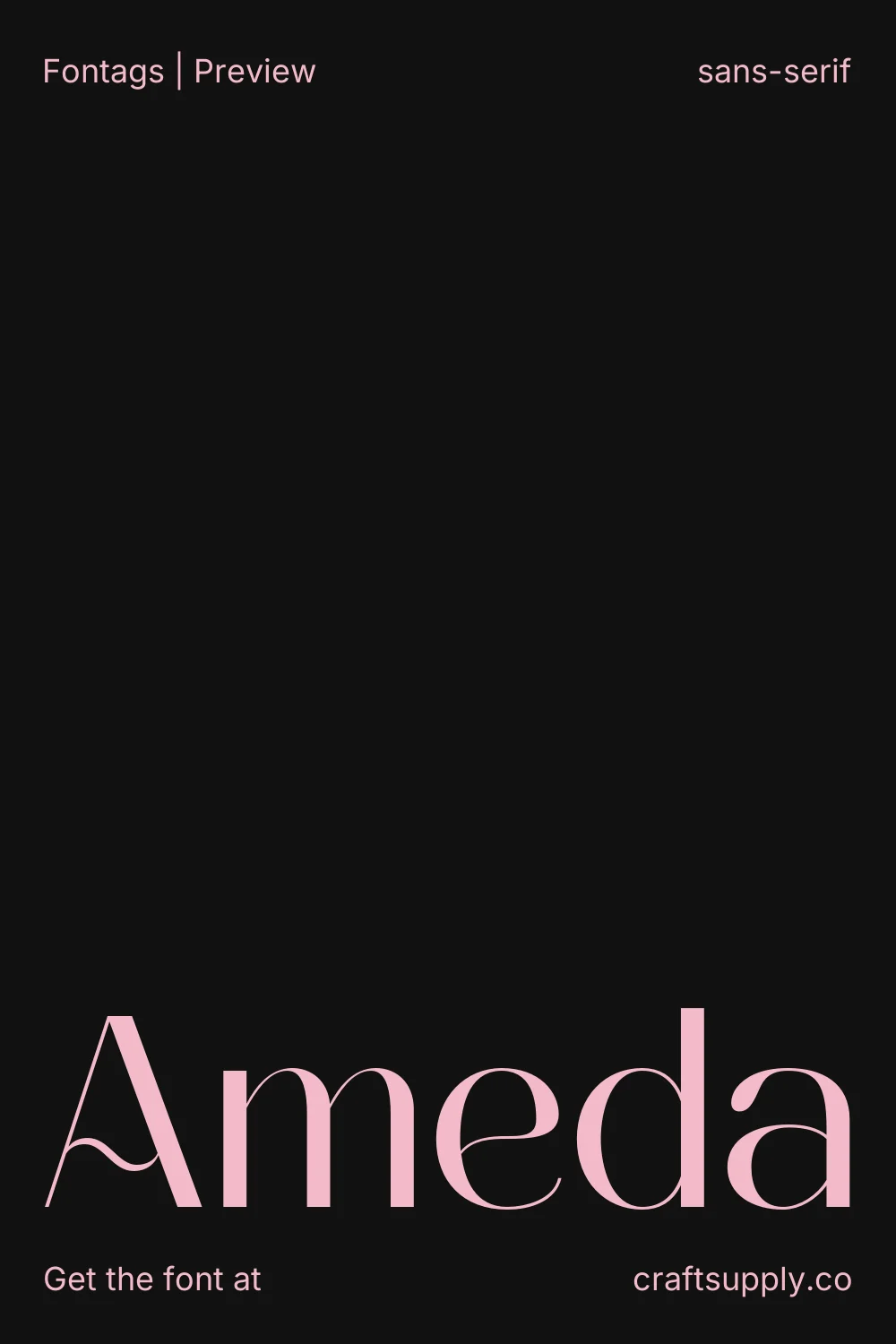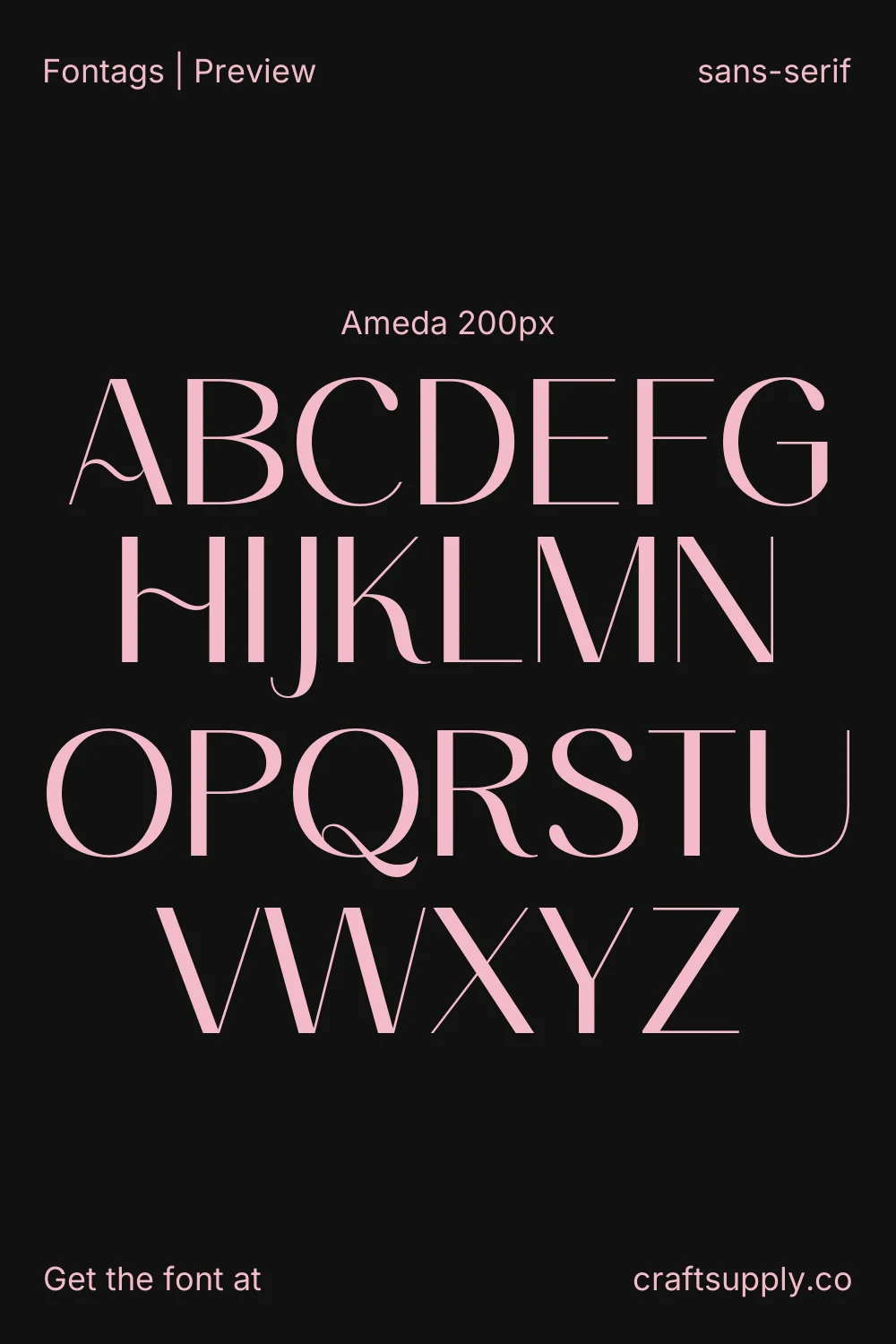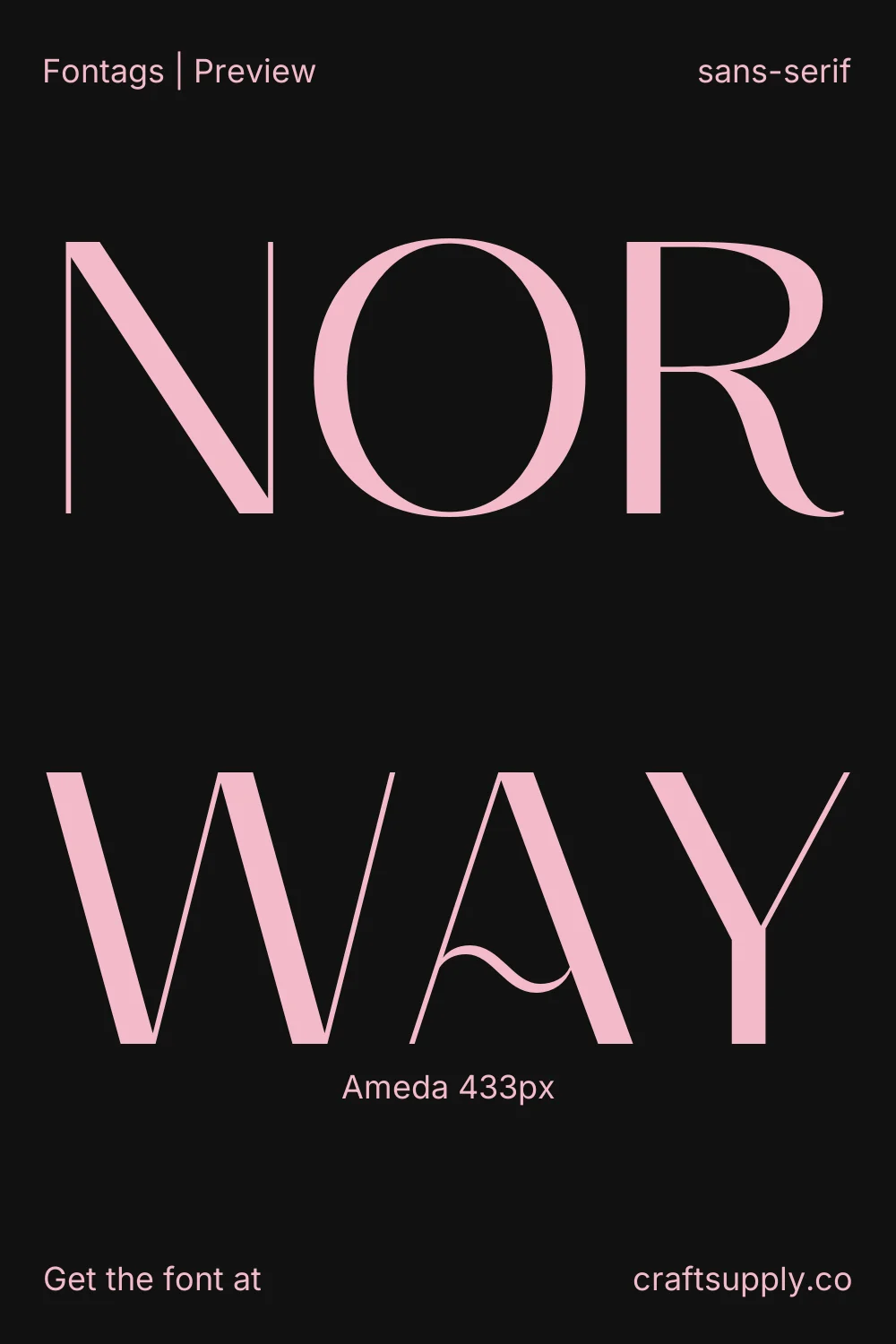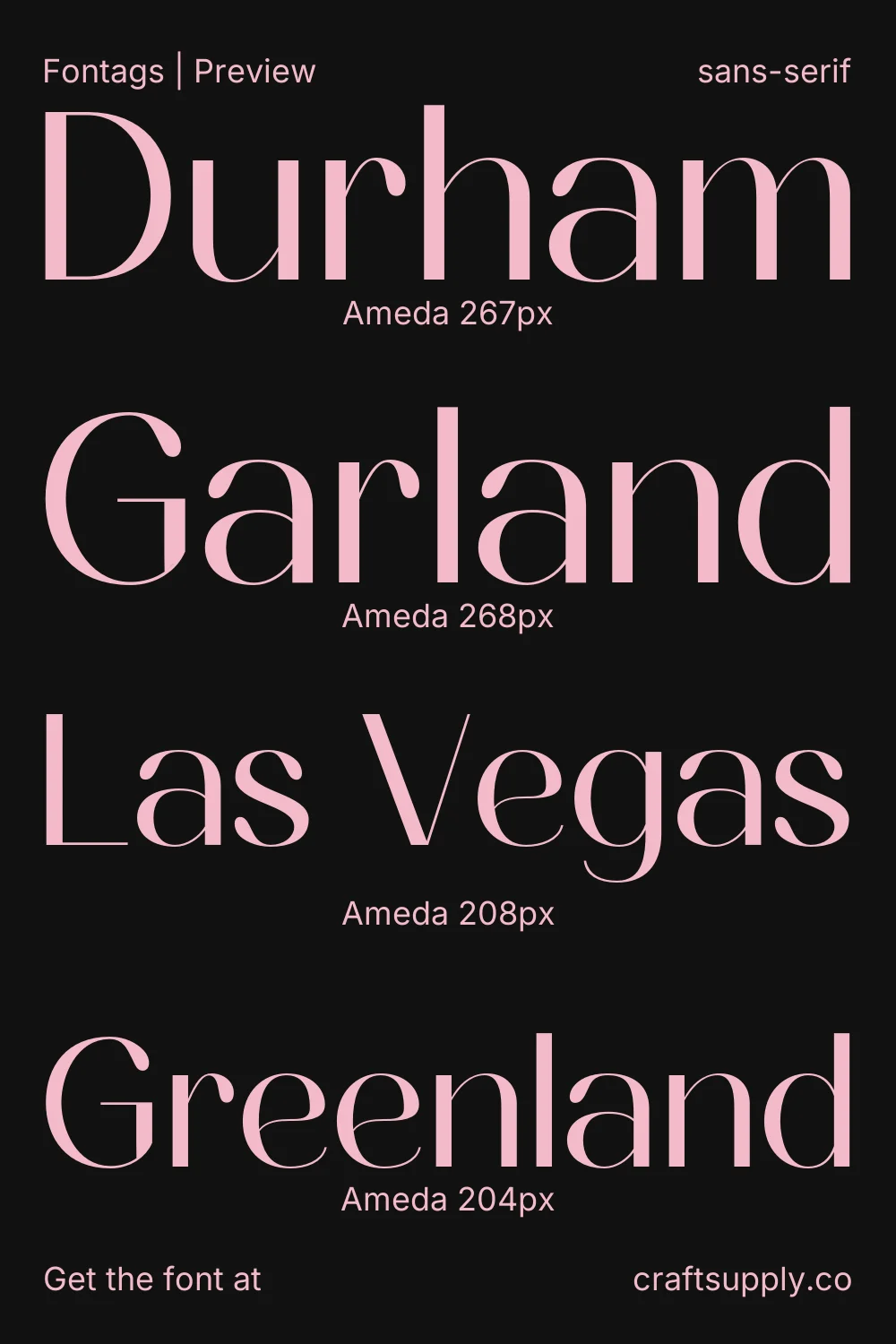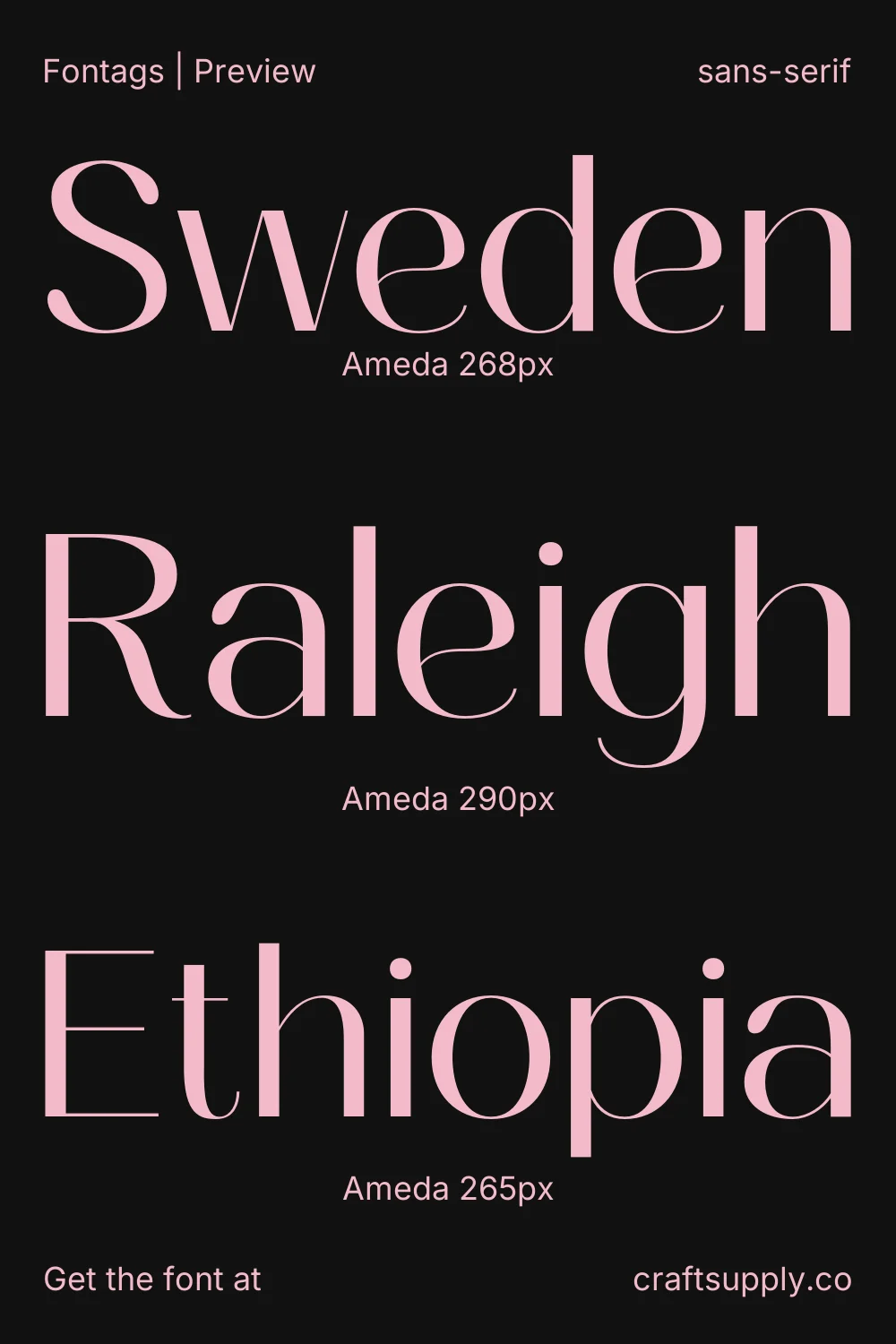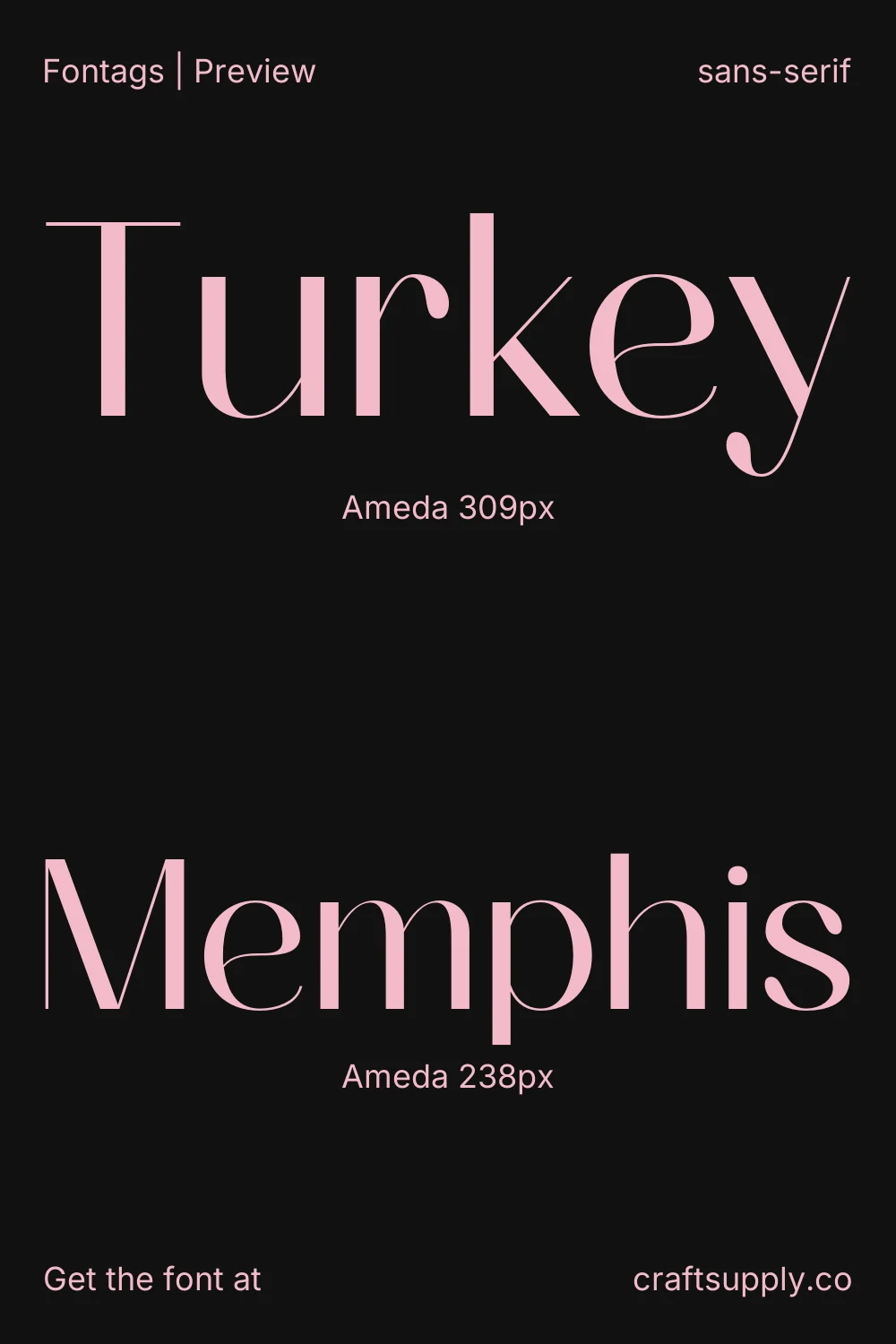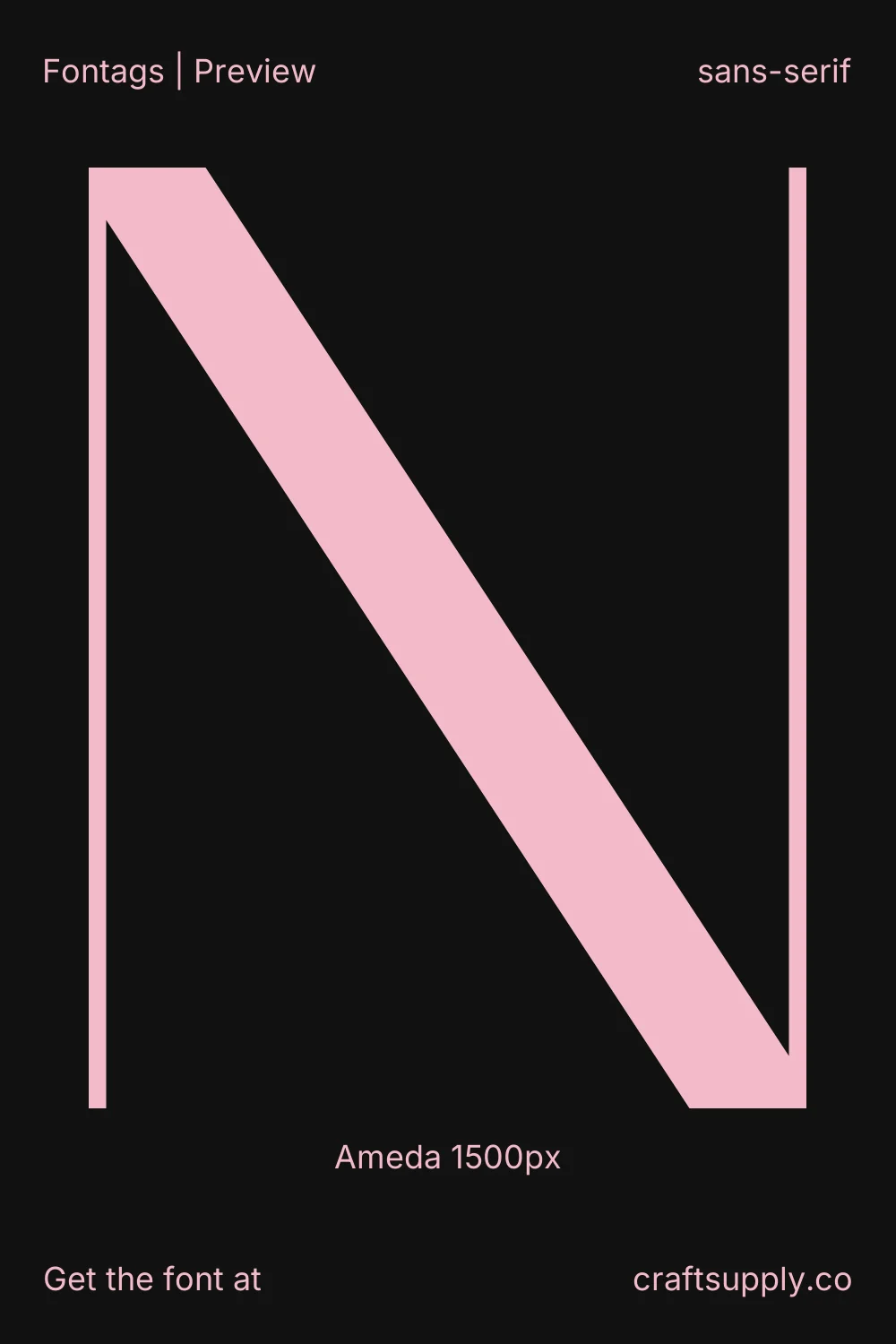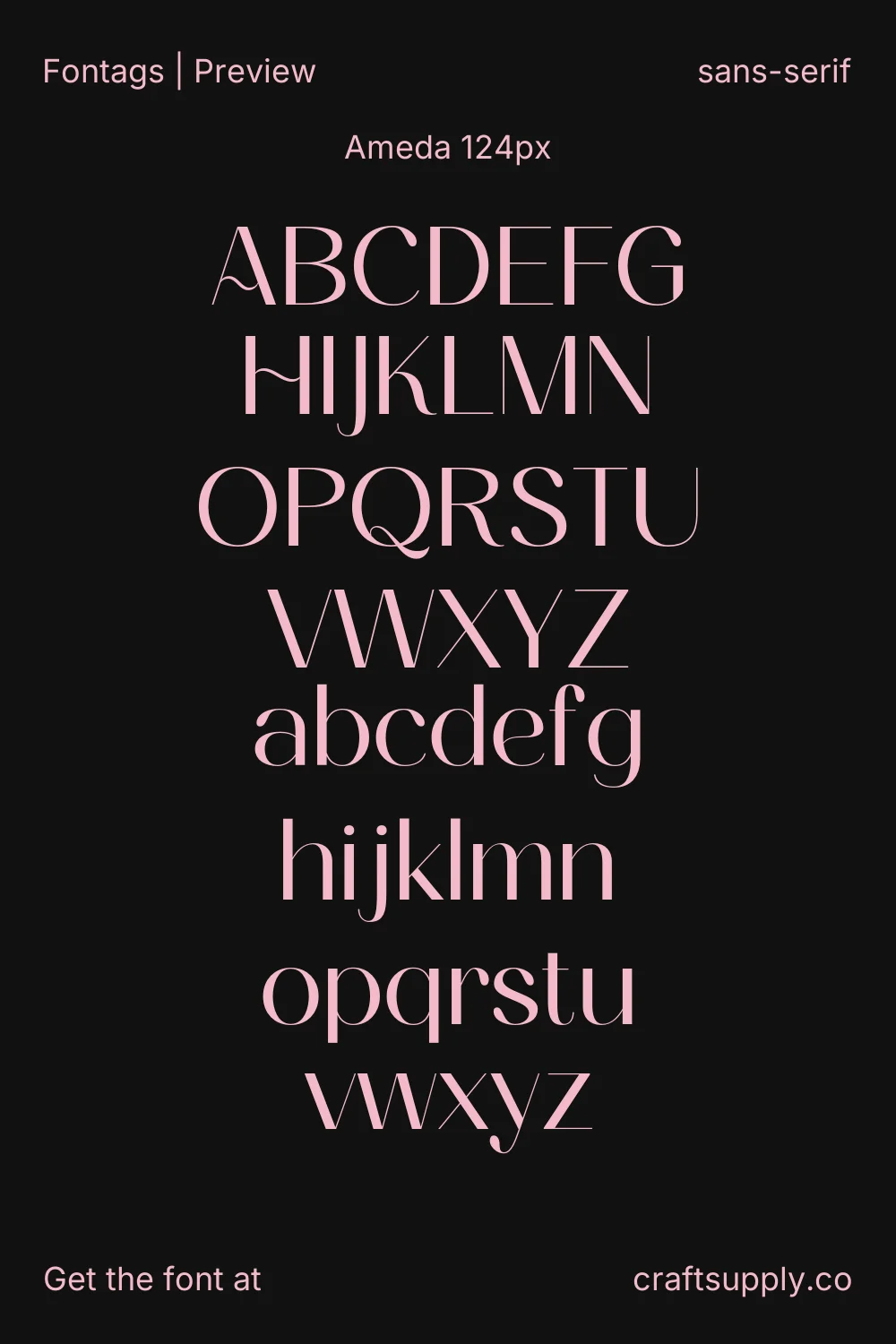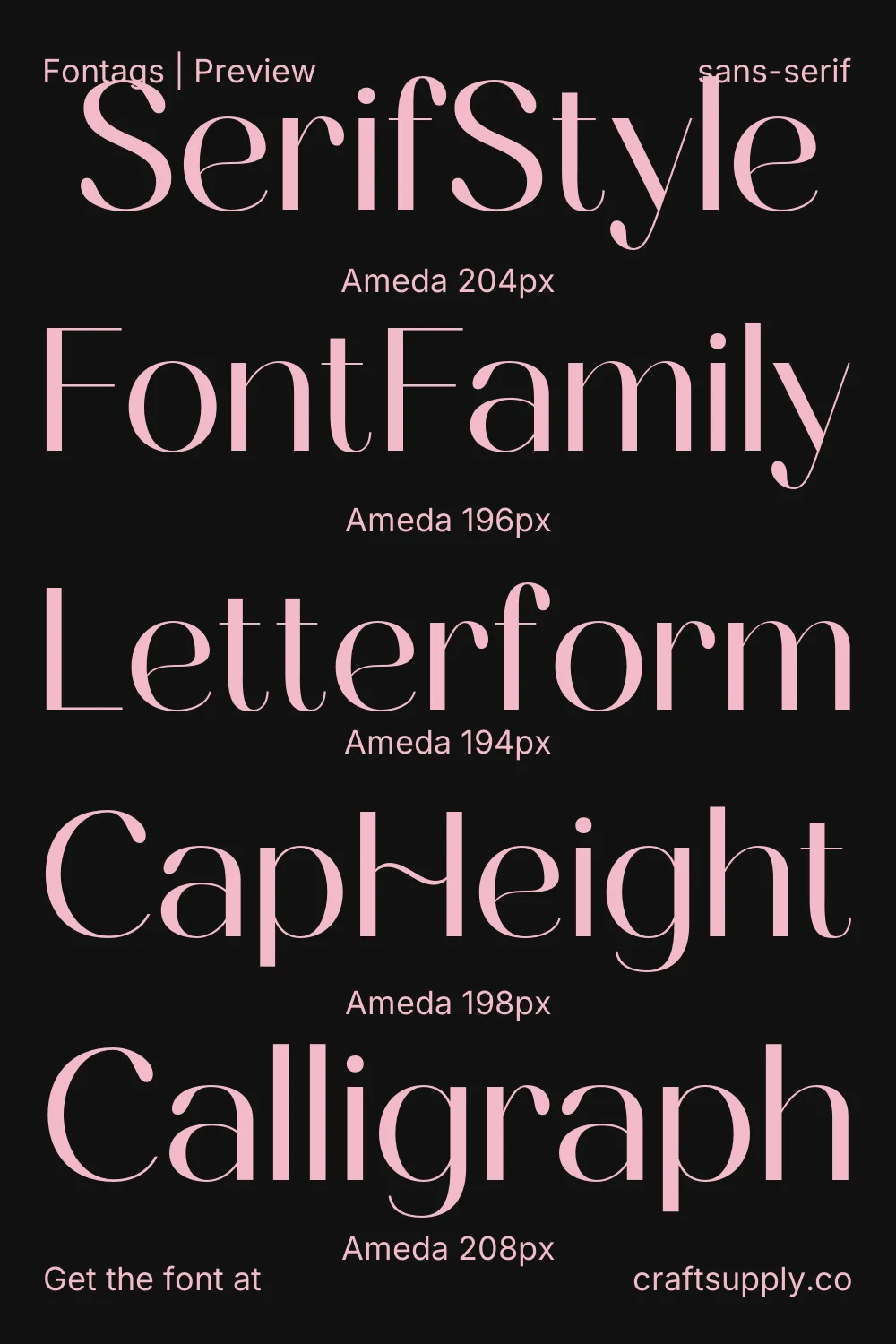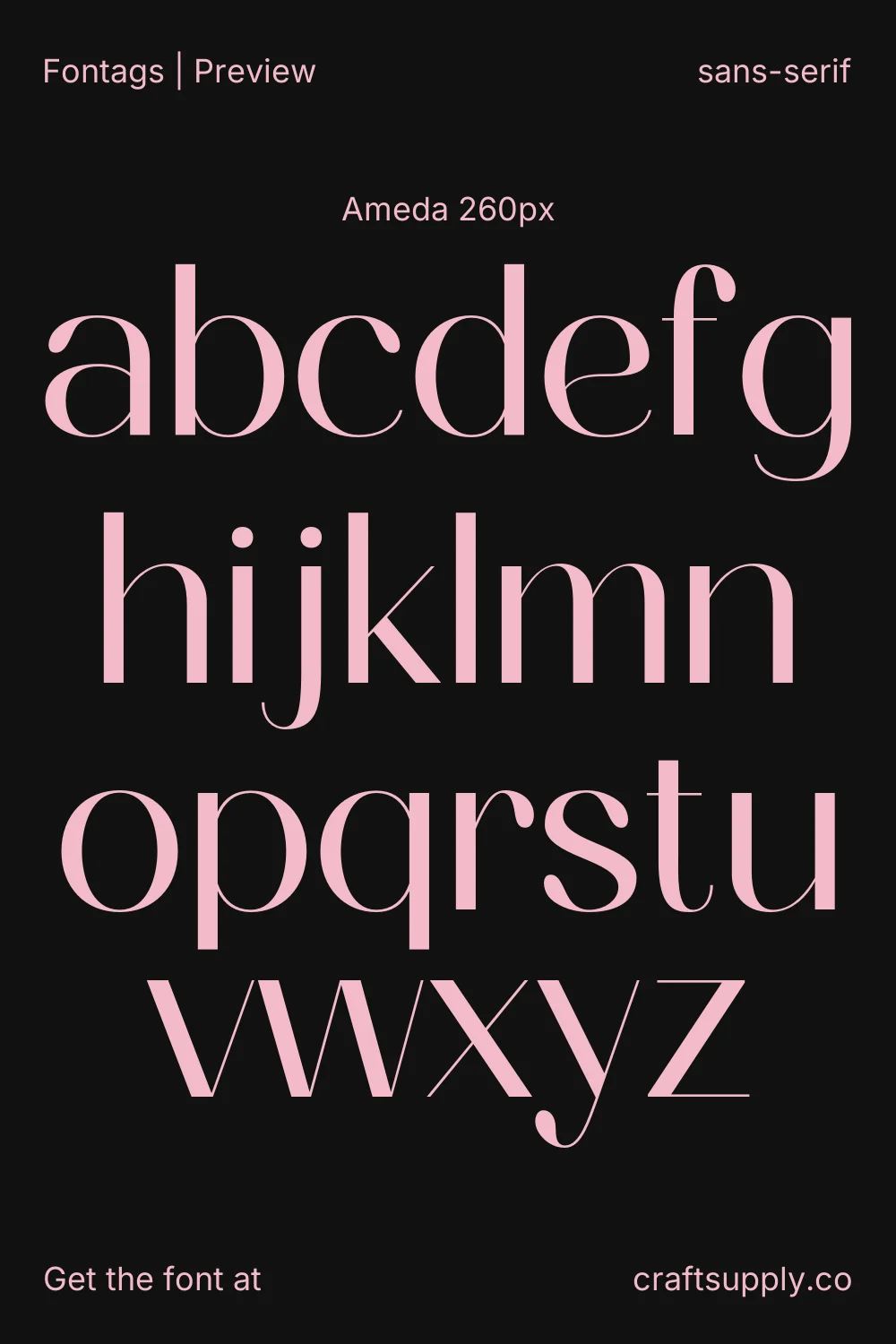
Ameda
Ameda is a modern sans-serif typeface distinguished by high-contrast strokes that deliver sophistication and visual impact. Its stylish, attention-grabbing design works beautifully for greeting cards, packaging, brand identity, posters, and other projects requiring a trendy, eye-catching aesthetic. The family includes regular and italic styles with multilingual support.